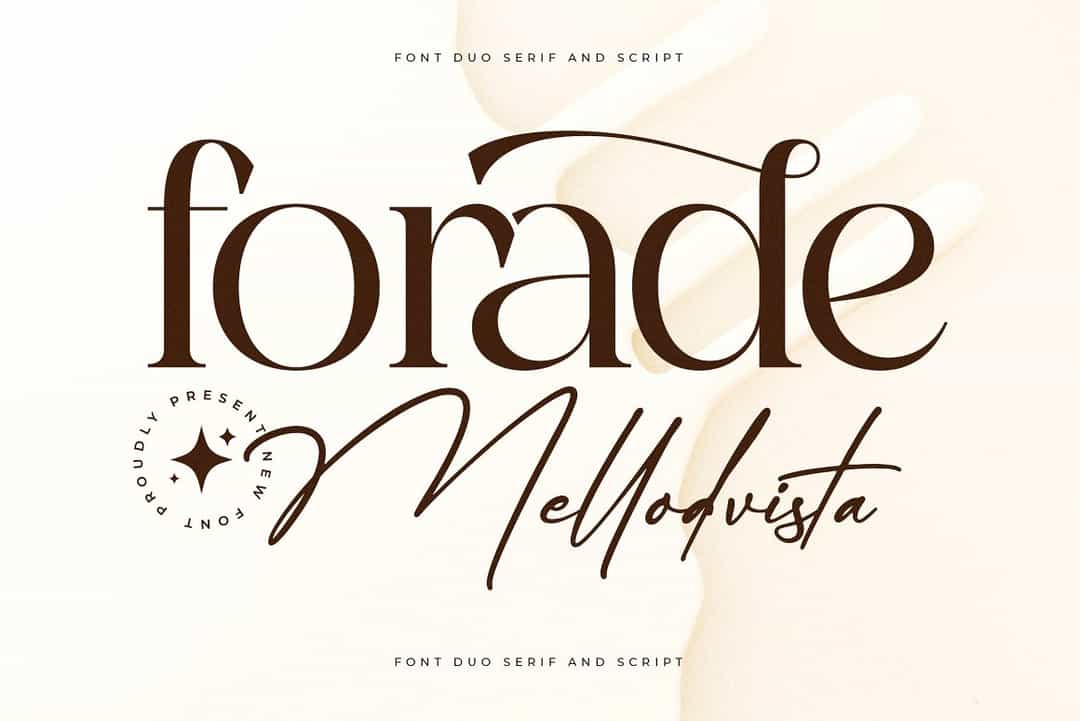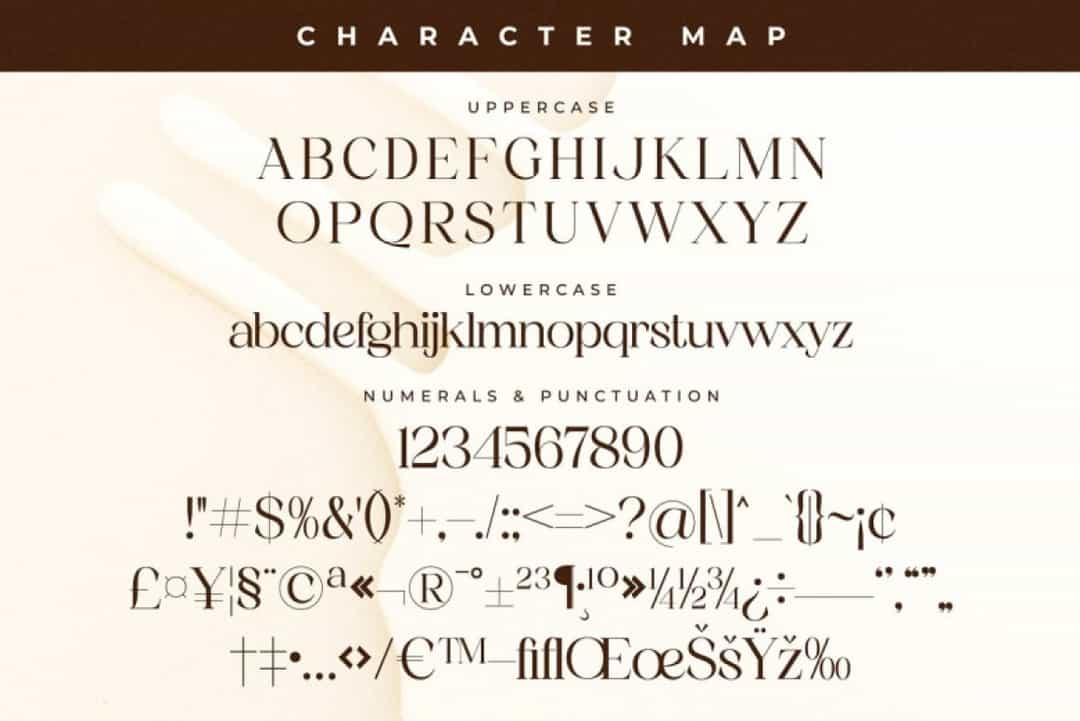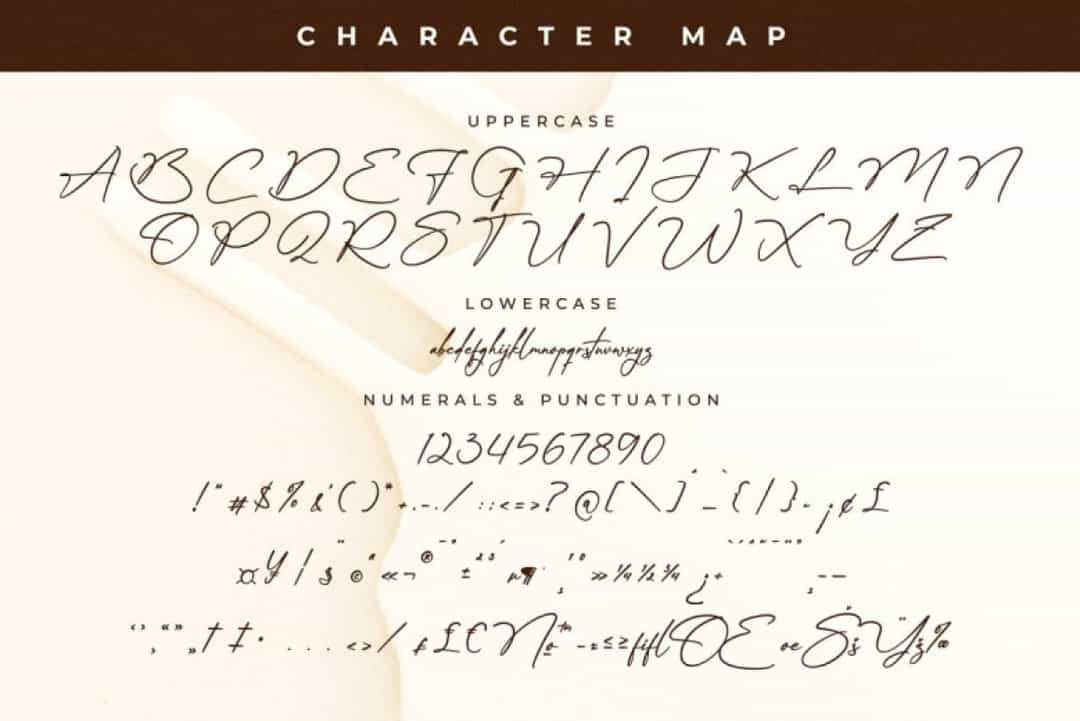
Forade Mellodvista is an iconic duo typeface which combines traditional serifs with elegant script elements for an eye-catching combination. Perfect for all manner of creative projects from invites to branding material or simply adding some class into the workplace, Forade Mellodvista brings elegance and fun into one versatile font pair that stands out.